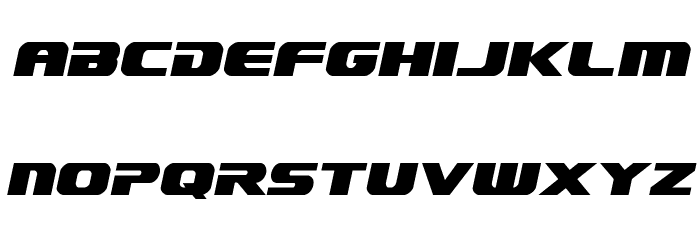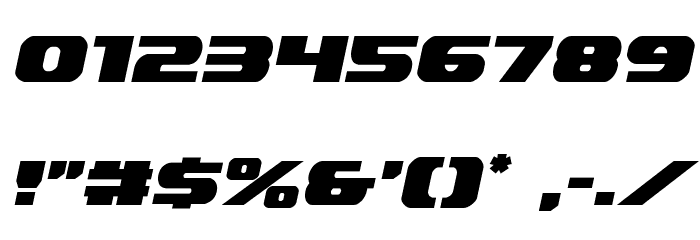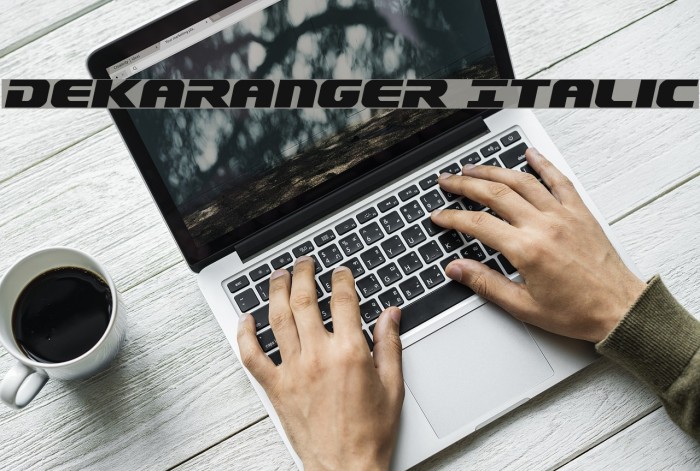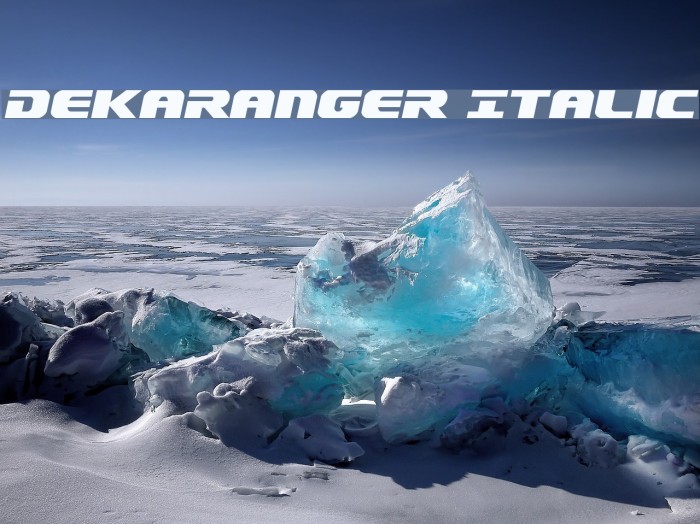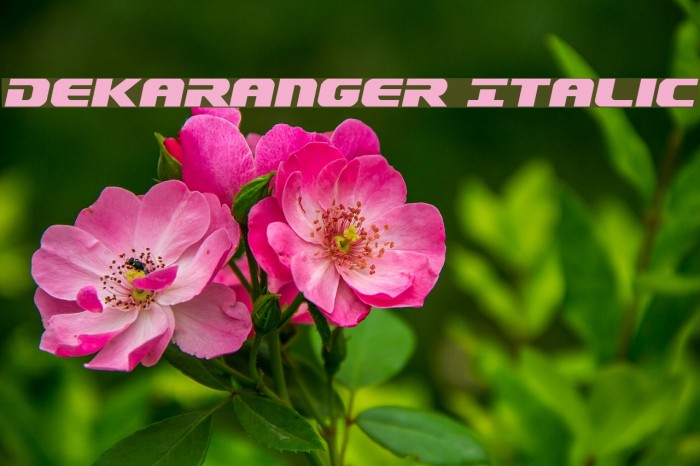
Dekaranger Italic Font
This font features a bold and dynamic style with a futuristic and angular design. The characters are italicized, giving them a forward-leaning appearance that suggests movement and speed. The strokes are thick and consistent, contributing to a strong visual impact. The geometric shapes and sharp edges of the letters create a modern and edgy aesthetic. The font includes both uppercase and lowercase letters, numerals, and a variety of special characters, making it versatile for various design needs. Its boldness and unique style make it suitable for projects that require a standout and energetic typeface.
A bold, italicized font with a futuristic and angular design.
- Proposed Projects: Ideal for sci-fi themed designs, video game titles, sports branding, and dynamic posters.